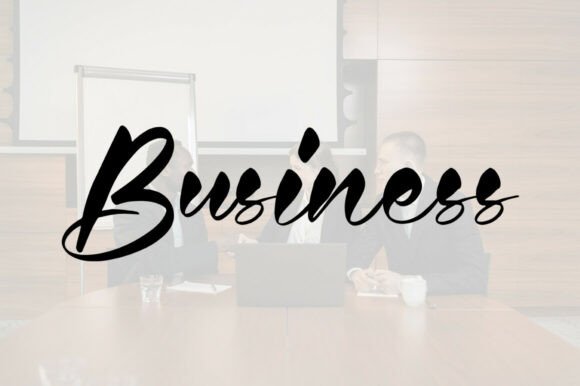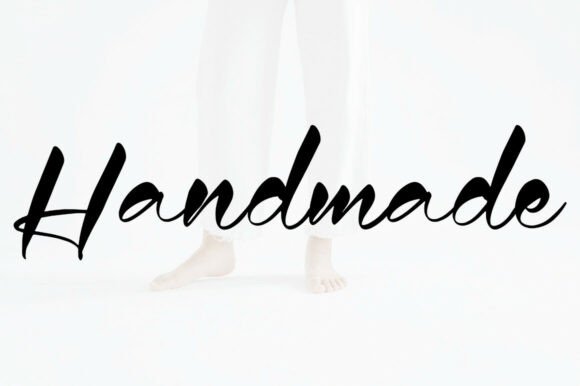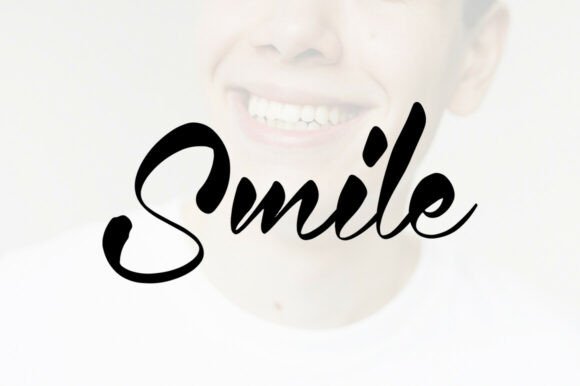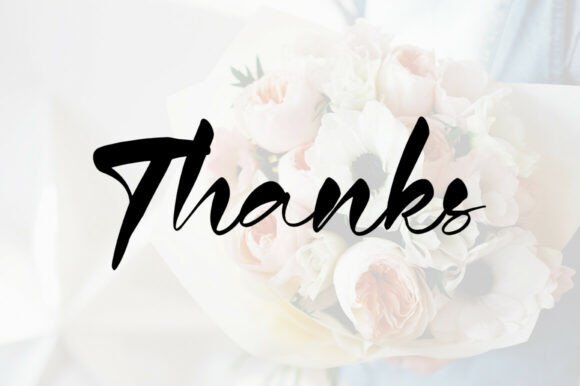
The Magic of Children Font: Elevate Your Designs with Elegance
I’ll never forget the time I was working on a wedding invitation project, and my client asked for a font that was both elegant and personal. I scoured the internet, trying out font after font, but nothing seemed quite right. That was until I stumbled upon the Children Font – a stylish and incredibly elegant handwritten font that instantly captured the essence of the occasion. In this article, I’ll share my experience with Children Font, its features, and how to make the most of it in your designs.
Here’s what I love about Children Font:
- ✨ Elegant and sophisticated: Children Font adds a touch of luxury to any design, making it perfect for wedding invitations, thank you cards, and other special occasions.
- ✅ PUA encoded: The font’s PUA encoding means you can easily access all the glyphs and alternates, giving you endless creative possibilities.
- 💫 Versatile: Children Font looks stunning on a variety of design materials, from logos and business cards to quotes and greeting cards.
And a few quirks to keep in mind:
- 🤔 Some characters may require manual kerning: While the font is generally well-spaced, you might need to adjust the kerning for certain character combinations to achieve optimal results.
- ⚠️ Not suitable for body text: Children Font is best used for headlines, titles, or short paragraphs – it’s not ideal for lengthy blocks of text.
The Story Behind Children Font
Children Font was designed with love and care by a talented type designer who wanted to create a font that would bring a touch of elegance and sophistication to any design. Inspired by classic calligraphy and handwritten scripts, Children Font is the perfect blend of traditional and modern design elements.
| Is Children Font suitable for body text? | No, Children Font is best used for headlines, titles, or short paragraphs – it’s not ideal for lengthy blocks of text. |